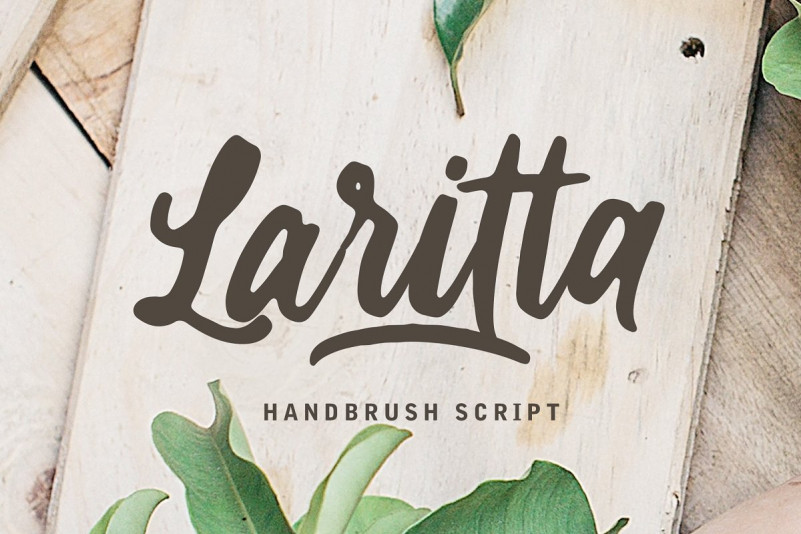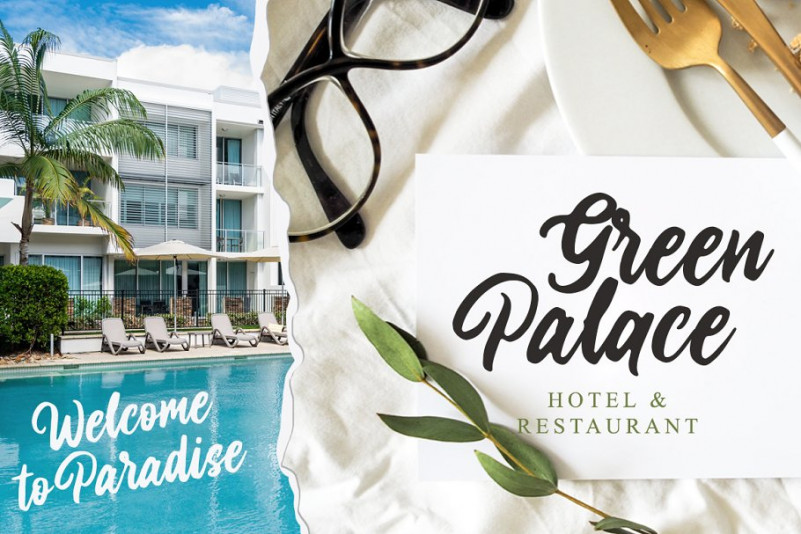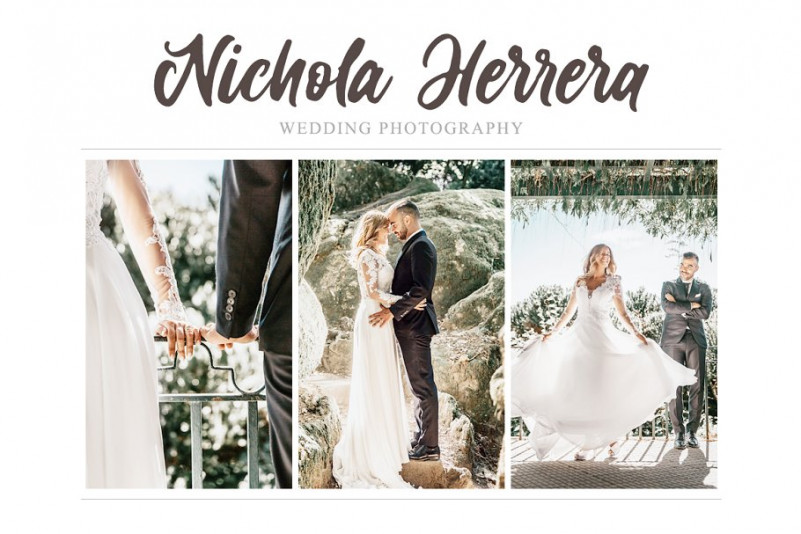
Laritta Font
Introducing Laritta – Handbrush Script, with natural rough dry brush strokes. You can use and enjoy Laritta, for your projects and anything who are needing a touch of elegance and modernity for your designs.
And this font perfect for signature, handwritten quotes, wedding, product packaging, fashion, photography, merchandise, branding projects, poster, social media, book cover, greeting cards, and advertising. You can create more easily with alternatives to each letter and make it as if you wrote it yourself.